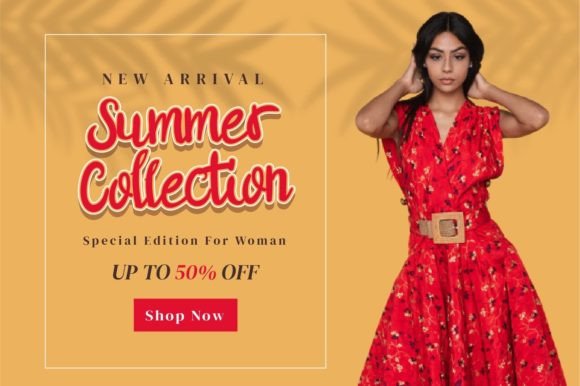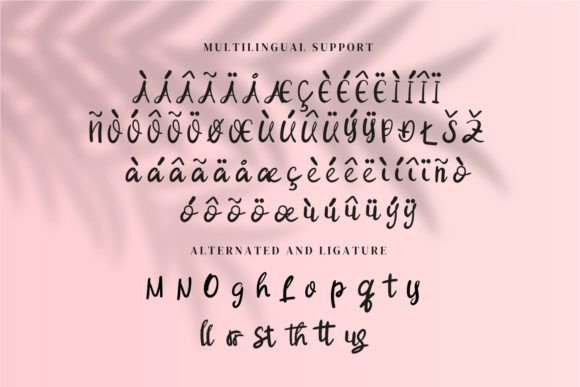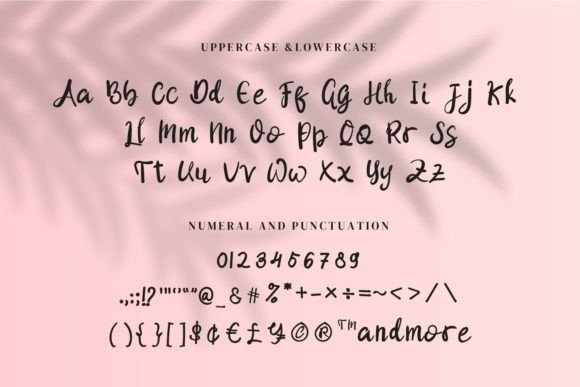
Introduction to Shellya Cristin Font
Do you remember that moment when you stumbled upon the perfect handwriting font that perfectly captured the essence of your creative project? For designers, finding that one special font can be a game-changer. It’s the difference between a project that looks ordinary and one that stands out from the crowd. If you’re looking for a modern script font that will elevate your designs, you’re in luck.
We’re excited to introduce you to the Shellya Cristin Font, a high-quality design resource that’s perfect for a wide range of creative projects. From logos and branding projects to homeware designs and product packaging, this font is sure to add a touch of elegance and sophistication to your work. With its beautiful handwriting style and transparent background, you can use it on a variety of materials, from mugs and t-shirts to book covers and greeting cards.
Key Features of Shellya Cristin Font
- High-quality, professional design suitable for various creative projects.
- Includes a wide range of characters, including uppercase and lowercase letters, numbers, and special characters.
- Unique characteristics include elegant lines, subtle curves, and a clean, modern aesthetic.
Honest Review: Shellya Cristin Font
I recently stumbled upon the Shellya Cristin Font, and I must say, it’s been a game-changer for my creative projects. The high quality of this font is evident from the moment you download it.
What works well: ✨ The font’s versatility is impressive, making it suitable for a wide range of designs, from elegant invitations to modern logos. The transparent background allows for seamless integration with any design element, giving you complete creative control.
Here are some of my favorite features:
- Beautiful cursive script that’s perfect for adding a personal touch to your designs
- High-quality vector format that ensures crisp and clear rendering
- Easy to customize and manipulate, making it a great design resource for both beginners and pros
Overall, I’m impressed with the Shellya Cristin Font. While it’s not perfect, its strengths far outweigh its weaknesses, making it a valuable addition to any designer’s toolkit.
Tips for Getting the Most Out of Shellya Cristin Font
Use Shellya Cristin Font on a transparent background to create a clean and modern look. Experiment with different font sizes and colors to add visual interest to your design. You can also use it in combination with other design elements, such as images and graphics, to create a unique and eye-catching design.
Shellya Cristin Font is a versatile design resource that can be used in a variety of creative projects, including blog posts, social media graphics, presentations, and more. It’s perfect for designers who want to add a touch of elegance and sophistication to their designs.
Alternatives to Shellya Cristin Font
The Alex Brush Font is a beautiful, high-quality script font perfect for creative projects that require a touch of elegance. It’s ideal for wedding invitations, branding materials, and other design resources where a sophisticated look is desired.
Compared to Shellya Cristin Font, Alex Brush Font has a more refined and polished feel, making it suitable for formal events and professional designs. While Shellya Cristin Font has a more playful vibe, Alex Brush Font is better suited for projects that demand sophistication and refinement.